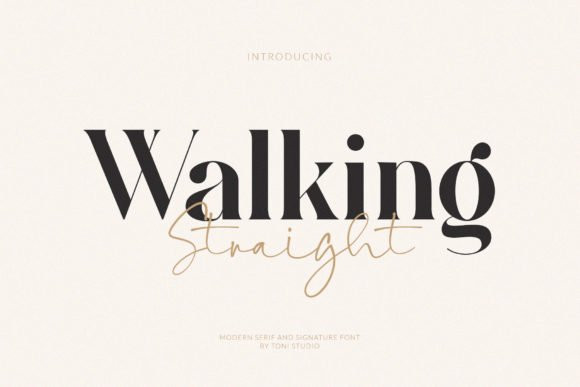
Walking Straight Font
Walking Straight FontWalking Straight is a lovely and versatile duo font (serif and script). Incredibly bold and beautiful, this font fits a wide pool of designs, elevating them to the highest levels. Add this font to your favorite creative ideas and notice how it makes them come alive!